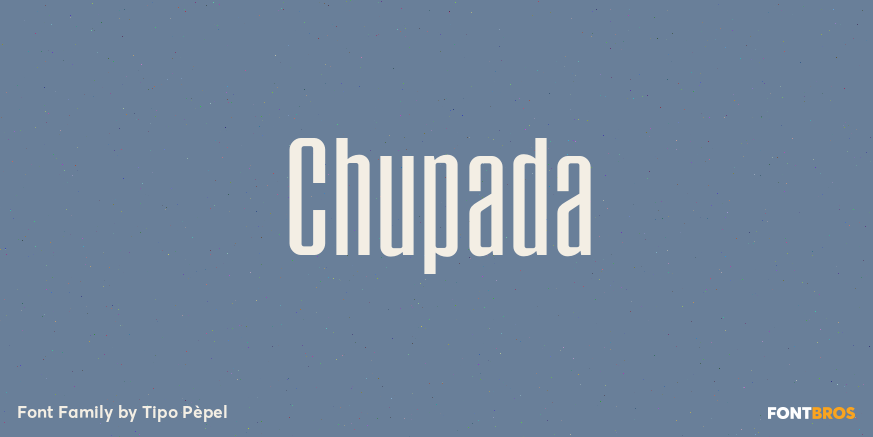
Chupada
About Chupada
Chupada is an ultra-condensed font family noted for their exaggerated x-height, which consists of five different weights, accompanied by their italic version. It contains all the central european characters and Cyrillic. Chupada with its bold semi-modular…